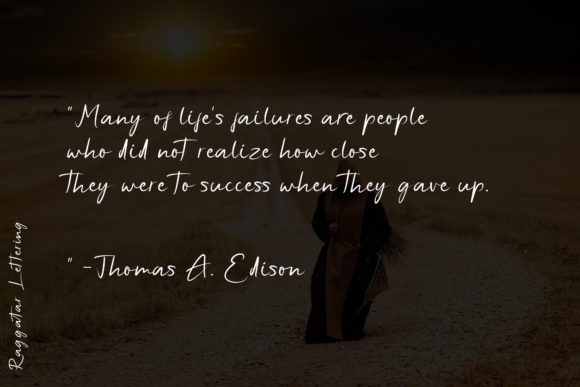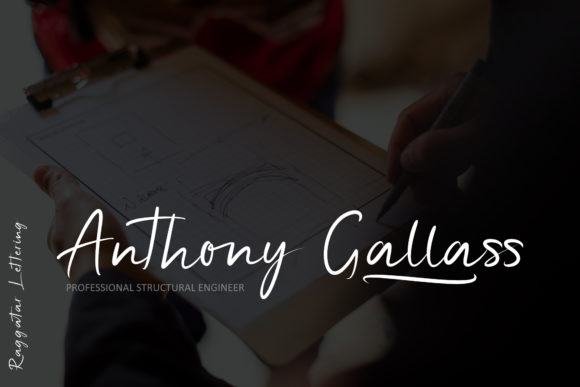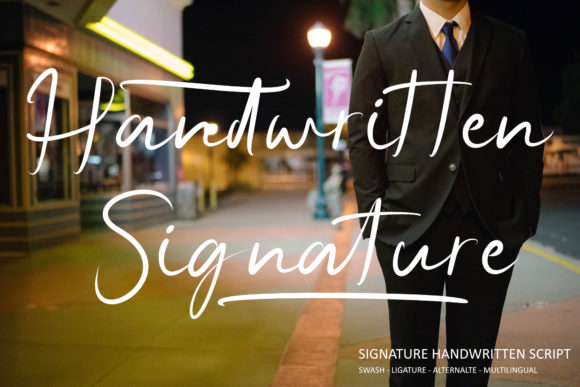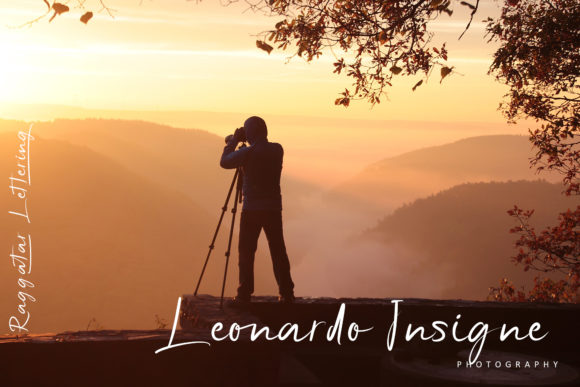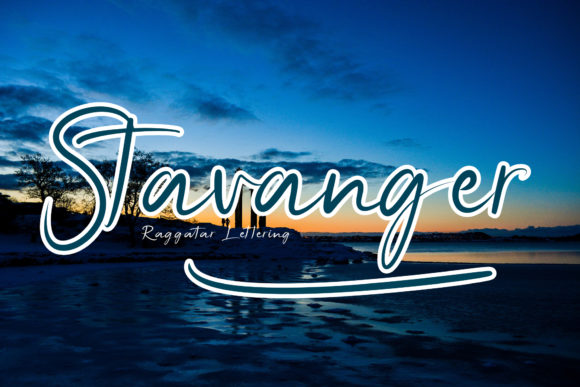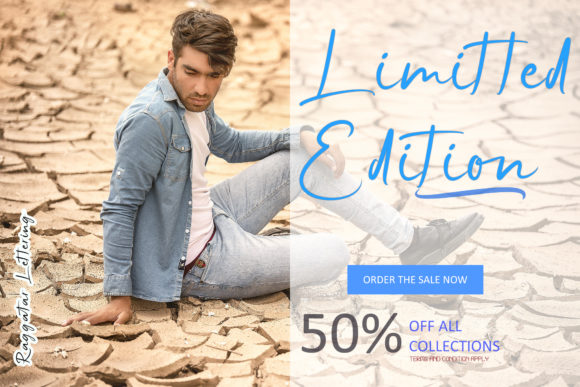
Introduction to Raggatar Lettering Font
Raggatar Lettering is a beautiful handwritten font, defined by a smooth flow.
This font is PUA encoded which means you can access all of the glyphs and swashes with ease It can be used for various purposes such as logos, wedding invitations, headings, t-shirts, letterhead, signage, labels, news, posters, badges and so much more.
Key Features of Raggatar Lettering Font
Why Choose Raggatar Lettering Font?
Raggatar Lettering Font offers exceptional quality and versatility, making it a valuable addition to your design toolkit. Whether you’re creating for personal projects or commercial use, Raggatar Lettering Font delivers professional results.